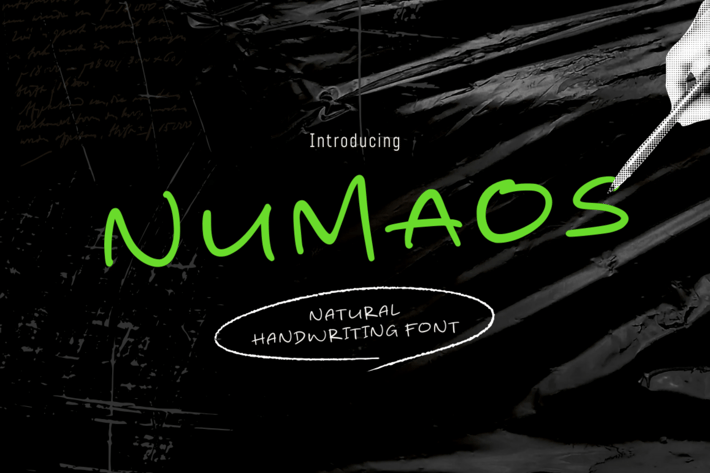
Numaos - Handwriting Font
Introducing "Numaos," a beautifully crafted handwritten font that brings a personal and authentic touch to your designs. With its fluid strokes and natural charm, "Numaos" is perfect for a wide range of projects, including invitations, greeting cards, branding, and social media graphics. This font adds a warm, intimate feel to your work, making each piece unique and memorable. Embrace the elegance and individuality of "Numaos" to elevate your creative projects.